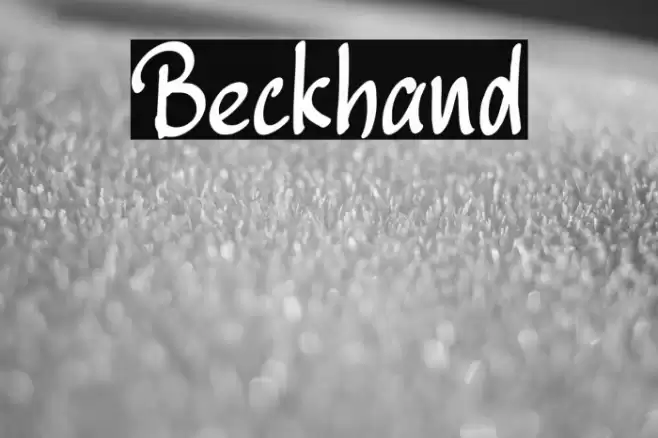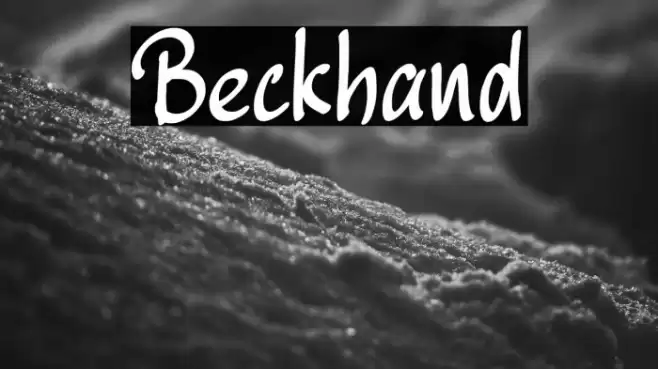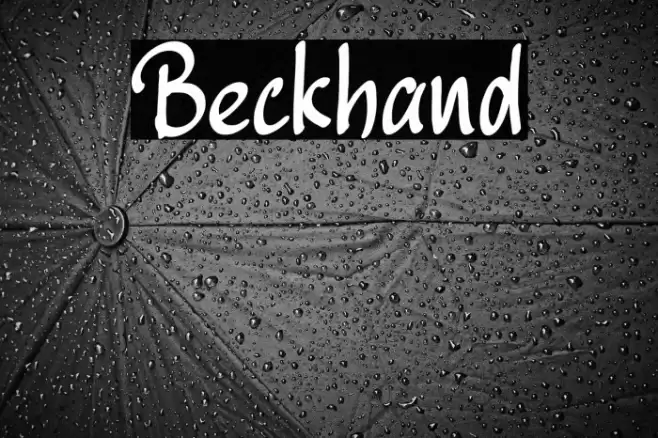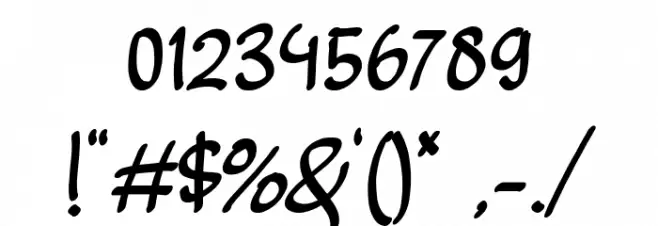
Beckhand Font
Beckhand Description
This font features a lively and expressive handwritten style, characterized by its flowing, cursive-like strokes. The uppercase letters are bold and dynamic, with a slight slant that adds to the energetic feel. The lowercase letters maintain a consistent style, offering a smooth and connected appearance. Numbers and special characters are crafted with the same fluidity, ensuring a cohesive look across all elements. The font's playful yet elegant nature makes it suitable for various creative applications.
A lively, handwritten font with flowing, cursive-like strokes from Uncategorized fonts.